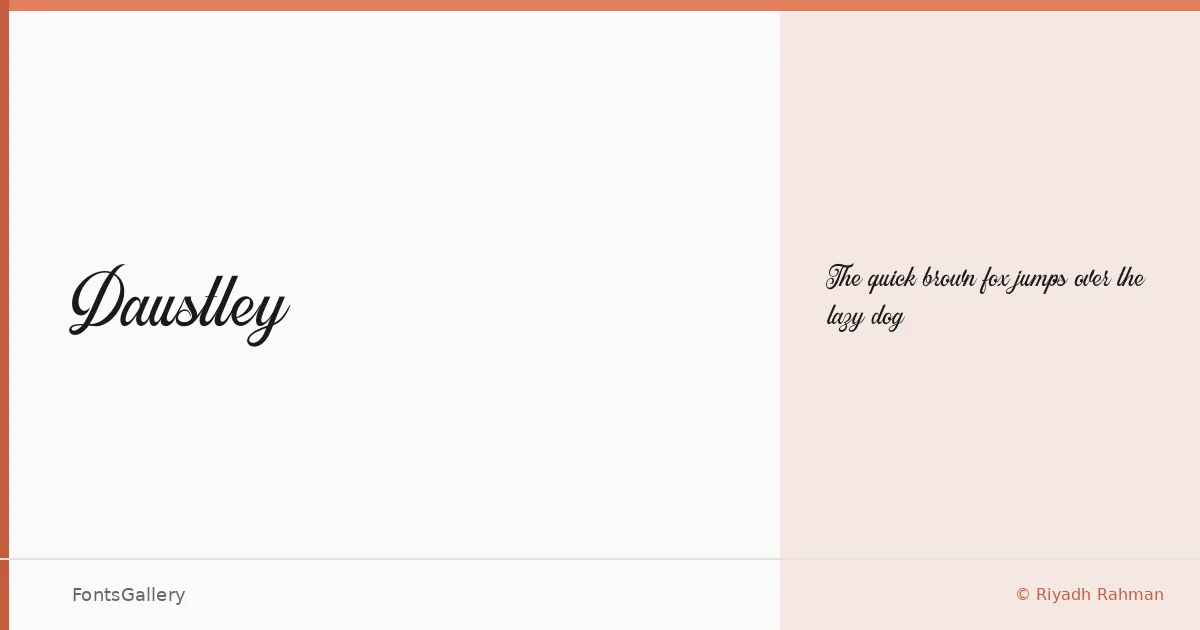
About Daustley Font
There is a particular kind of restraint in this script — the strokes carry romance without tipping into excess, and the letterforms hold their composure across a full line of text. Designed by Riyadh Rahman, it arrives as a single Regular weight in OTF format, built with care for the details that matter most at display sizes.
The mood here sits firmly in classic, elegant, romantic territory — the kind of script that feels at home on a wedding suite or a boutique logo without needing to shout. Latin coverage is handled cleanly through the single Regular cut, which means the character set is focused rather than sprawling. The flowing connections and measured contrast in the strokes give it a hand-lettered warmth while still reading with enough discipline for refined branding work.
This face earns its keep in invitation cards, greeting cards, and wedding collateral, and it holds up equally well as a logotype or brand signature wherever the brief calls for understated elegance. It pairs with confidence alongside Canela or ABC Arizona for editorial contrast, and sits well next to Helvetica or Asap when you need a clean workhorse to carry the body copy — Anglecia Pro is another natural companion when you want a more formal, serif-driven hierarchy.